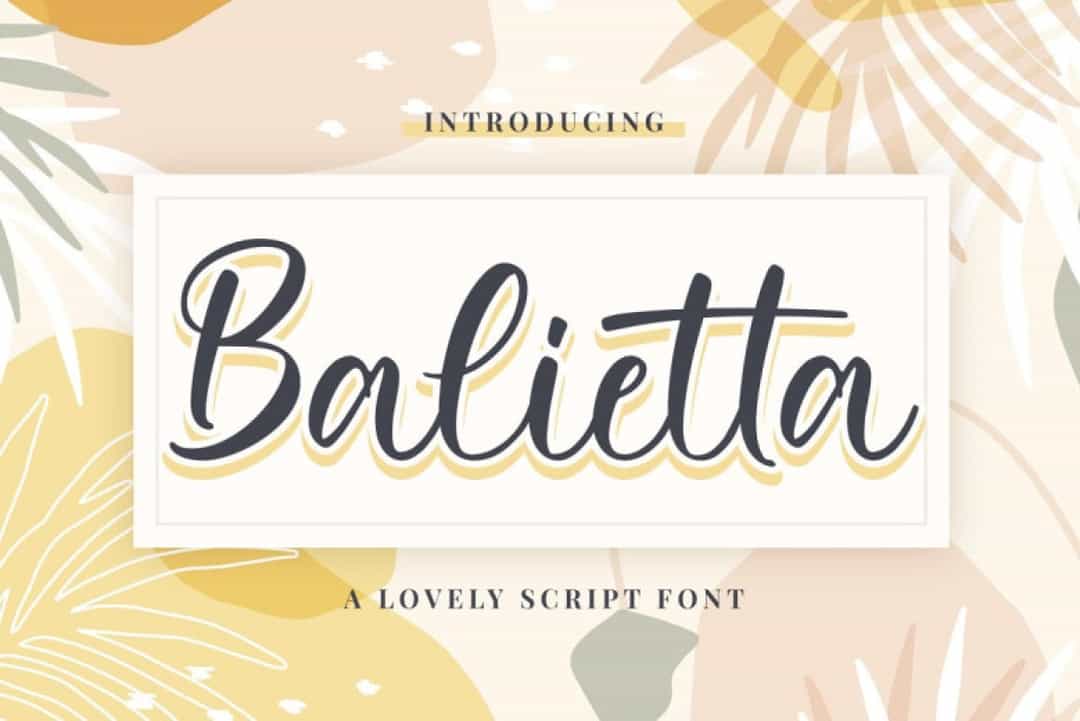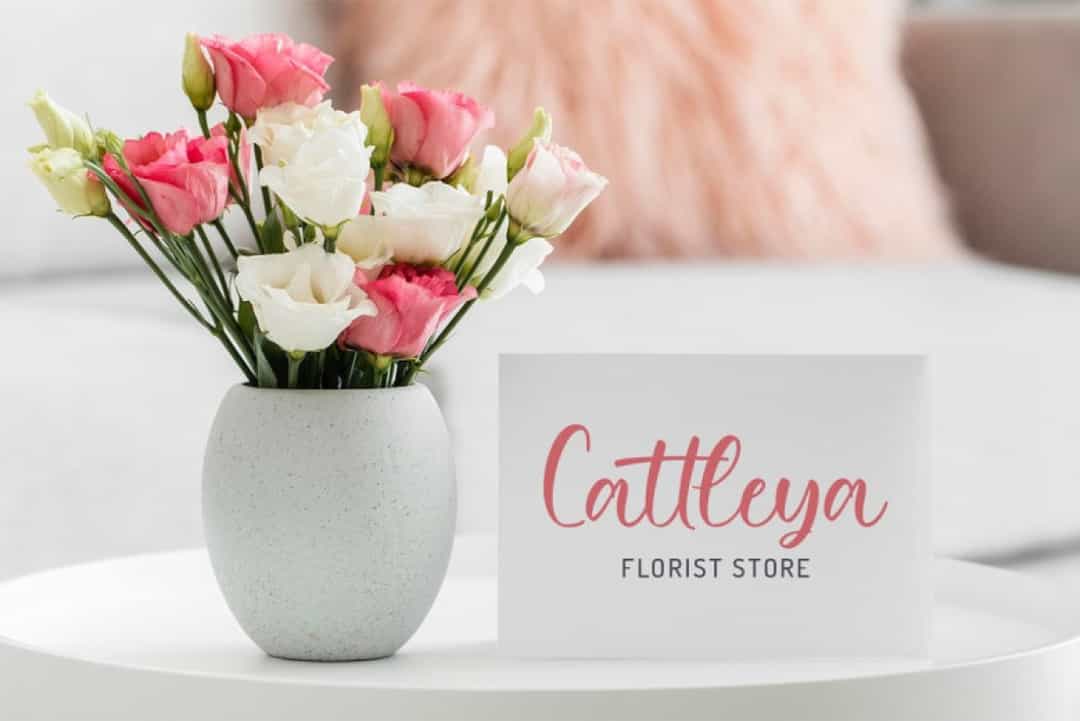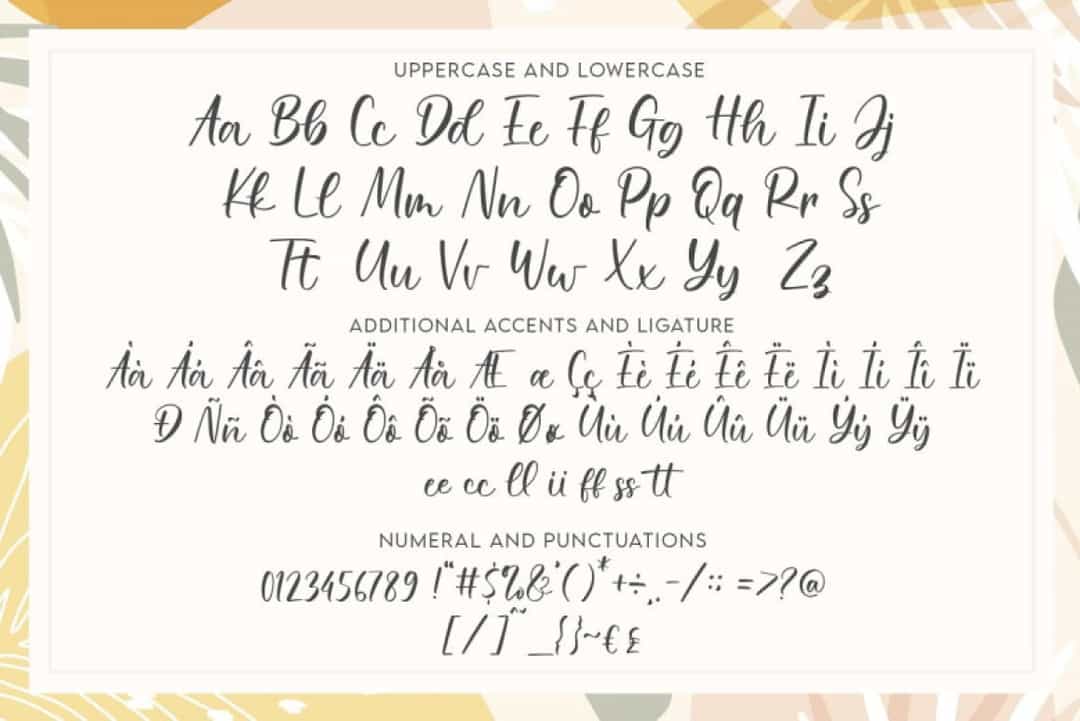
Discover Balietta Font, part of the Calligraphy Handwritten collection—a versatile and unique font perfect for adding a personal touch to your projects. Download it for free and enjoy crafting designs with style, from invitations to social media posts. This font is available exclusively for personal use, giving you the freedom to create without limits. Unlock your creativity with Balietta Font today!
Balietta – Lovely Script font featuring an attractive handwritten style will ensure that every design features natural details that pop. Perfect for invitation logos, book covers or craft projects; PUA encoded so as to access all ligatures easily.